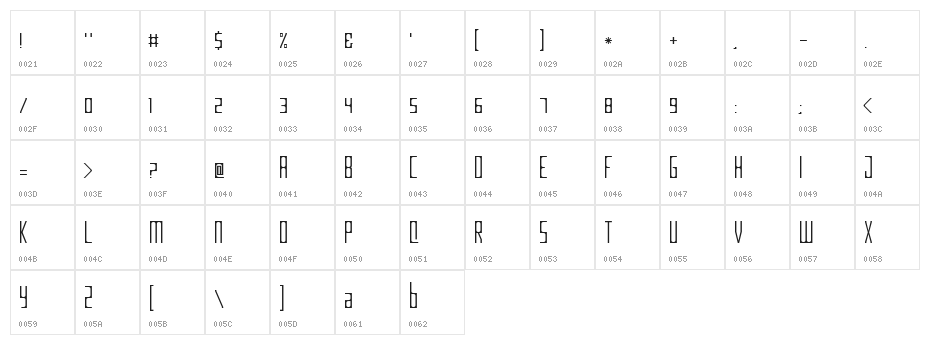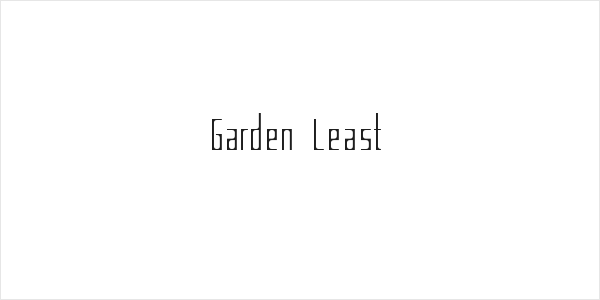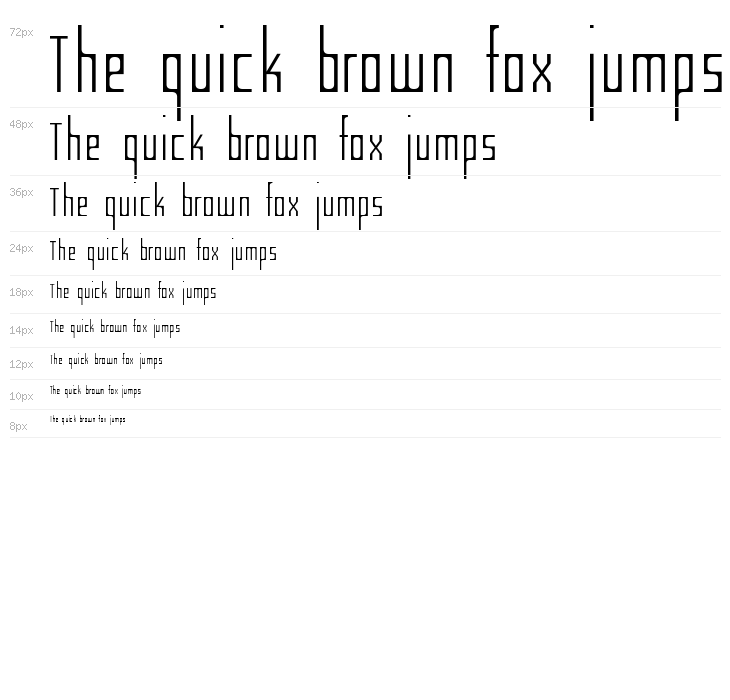
Garden Least Font
Garden Least Description
This font features a geometric and modern design with clean, straight lines and a slightly condensed appearance. The uppercase letters are tall and narrow, while the lowercase letters maintain a consistent height, creating a uniform look. The numerals are distinct and align well with the overall style, providing clarity and readability. Special characters are designed with a minimalist approach, enhancing the font's sleek and contemporary feel. The font's simplicity and precision make it suitable for various design applications.
| Use Case | Headlines, Logos, Digital interfaces |
| Proposed Projects | Ideal for branding, editorial design, posters, and digital interfaces where a modern and clean aesthetic is desired. |